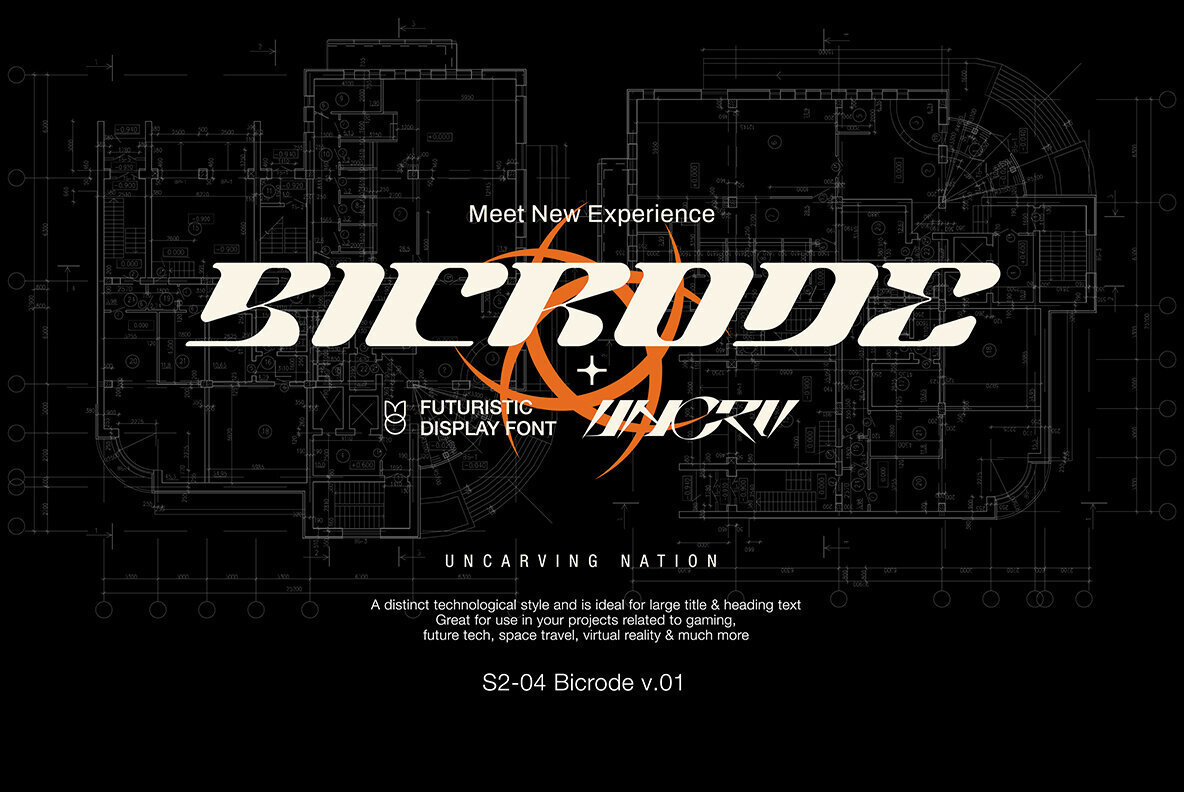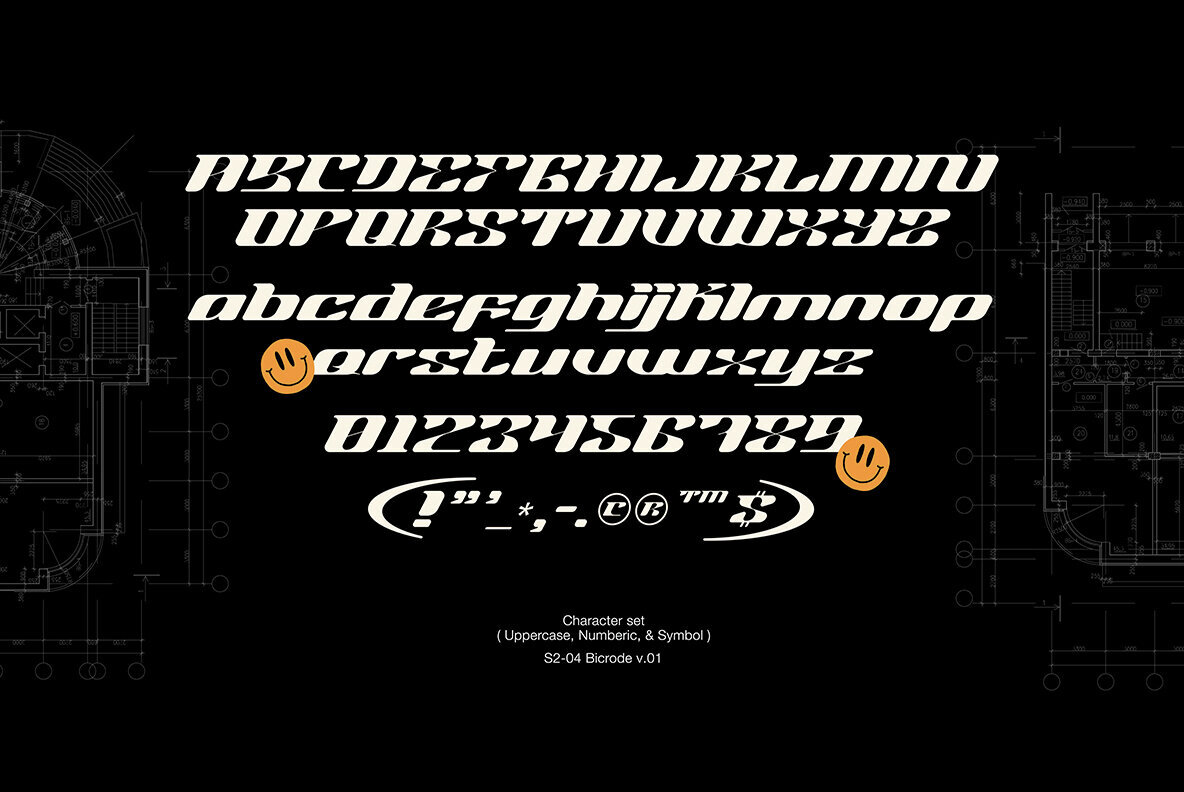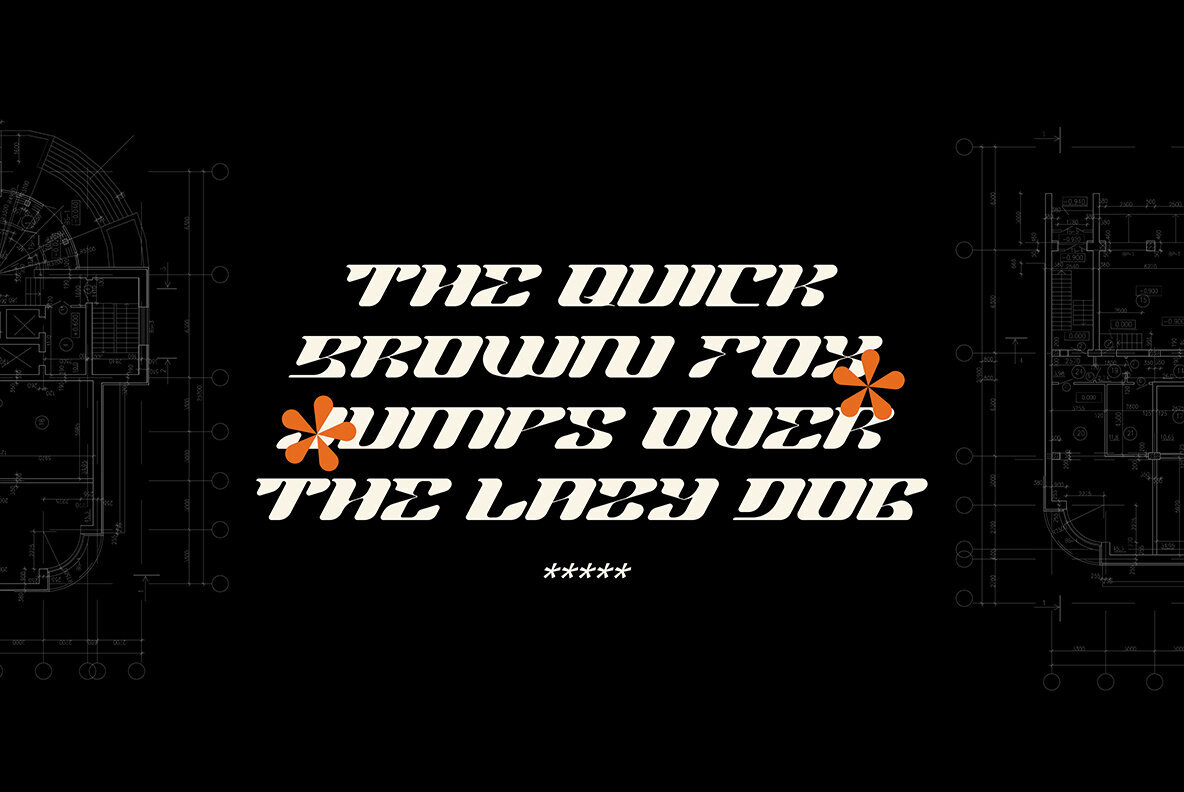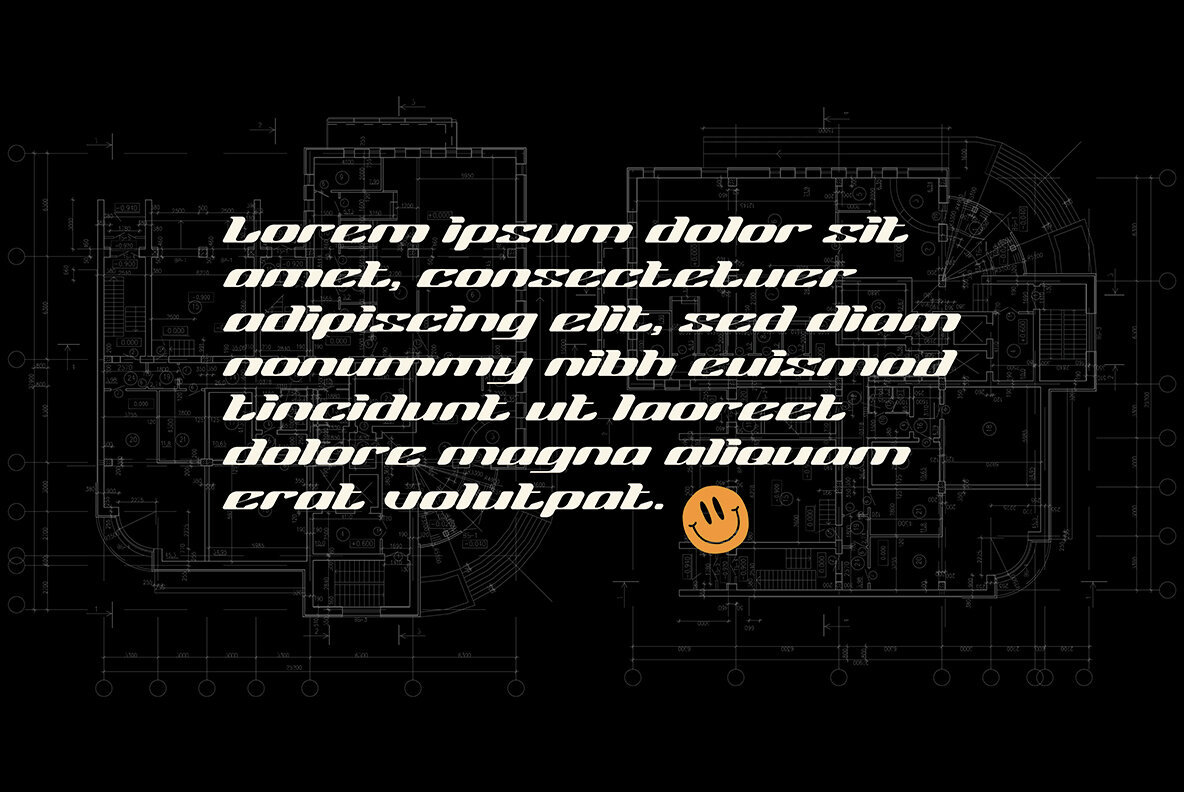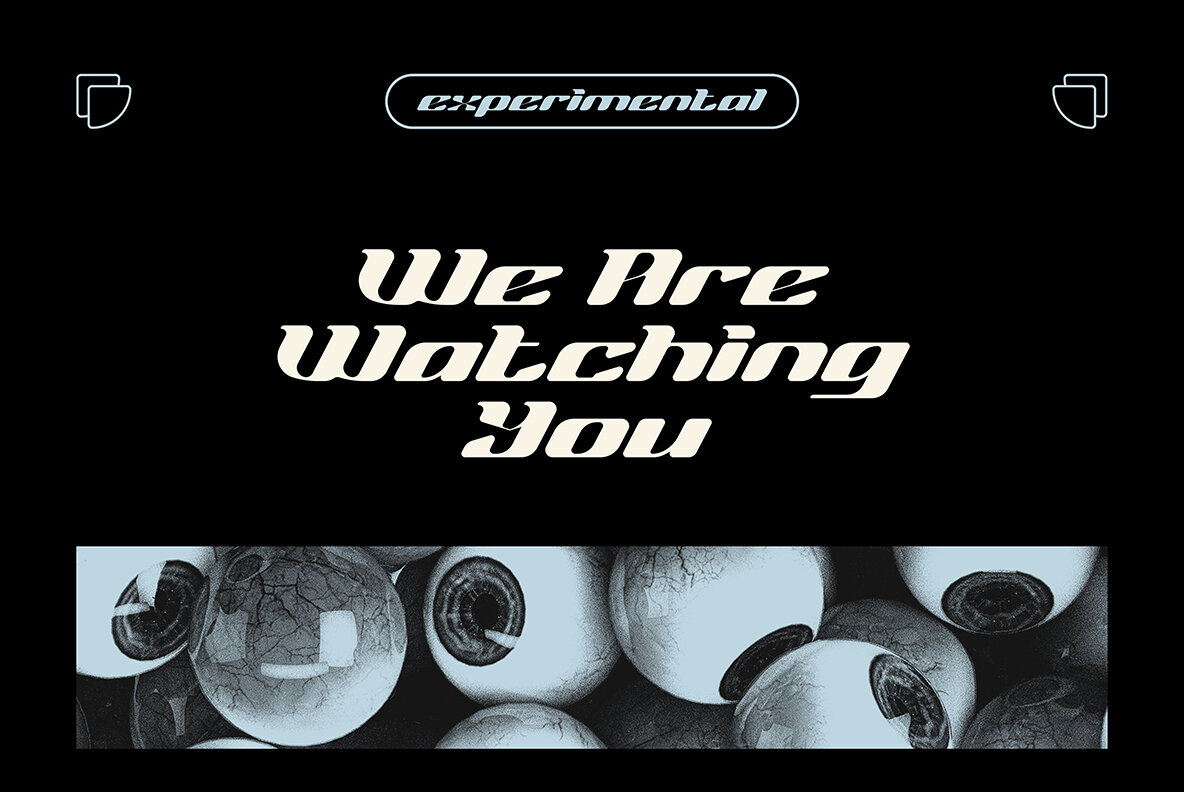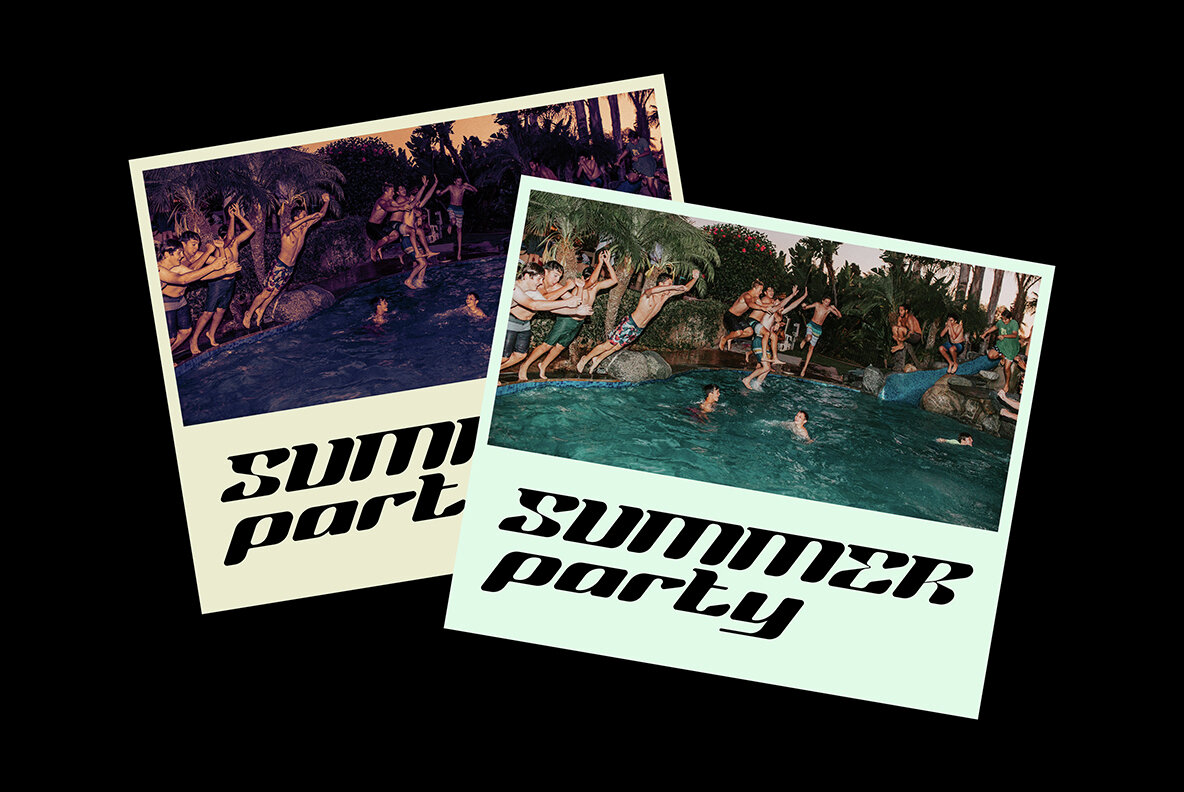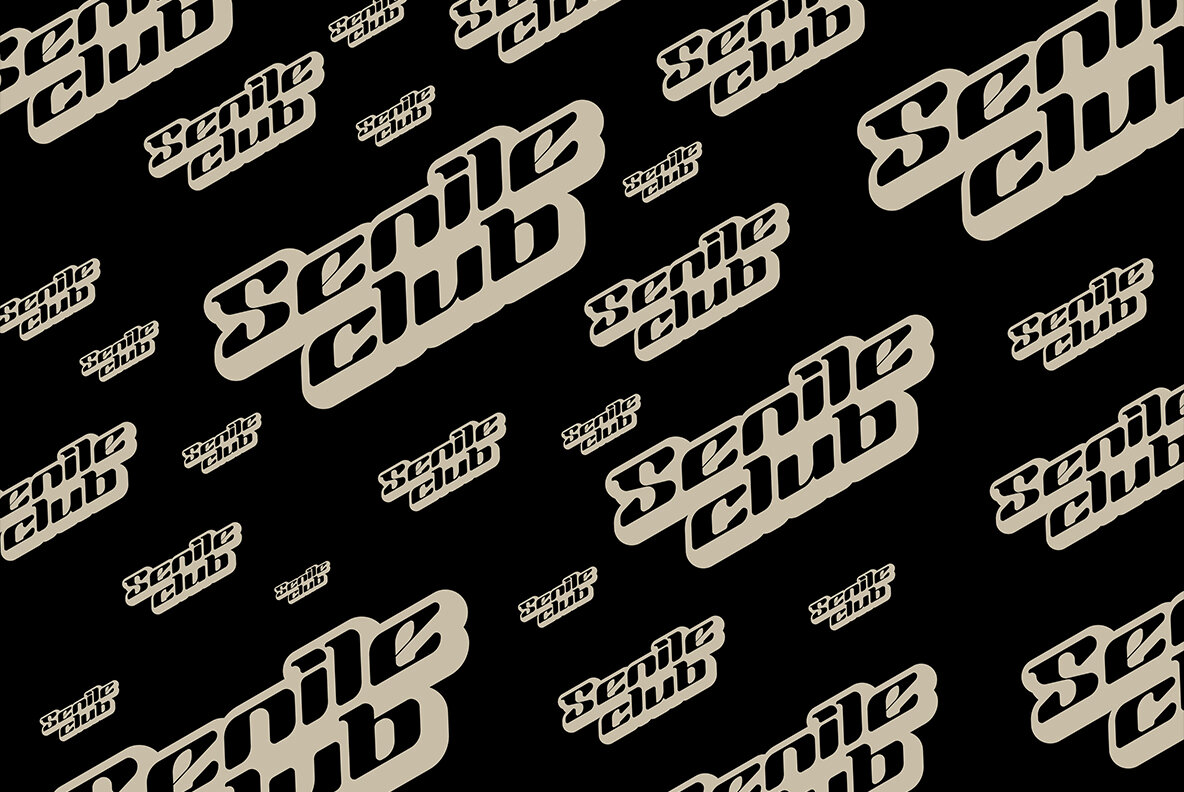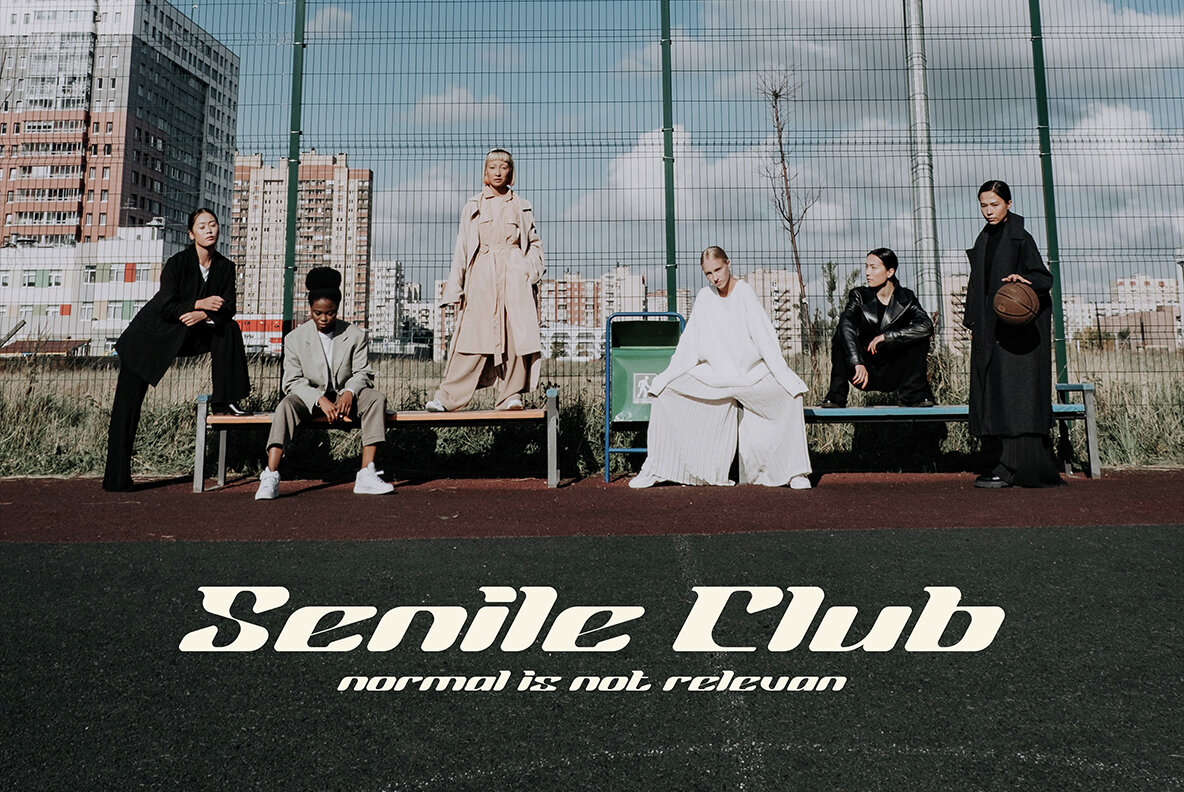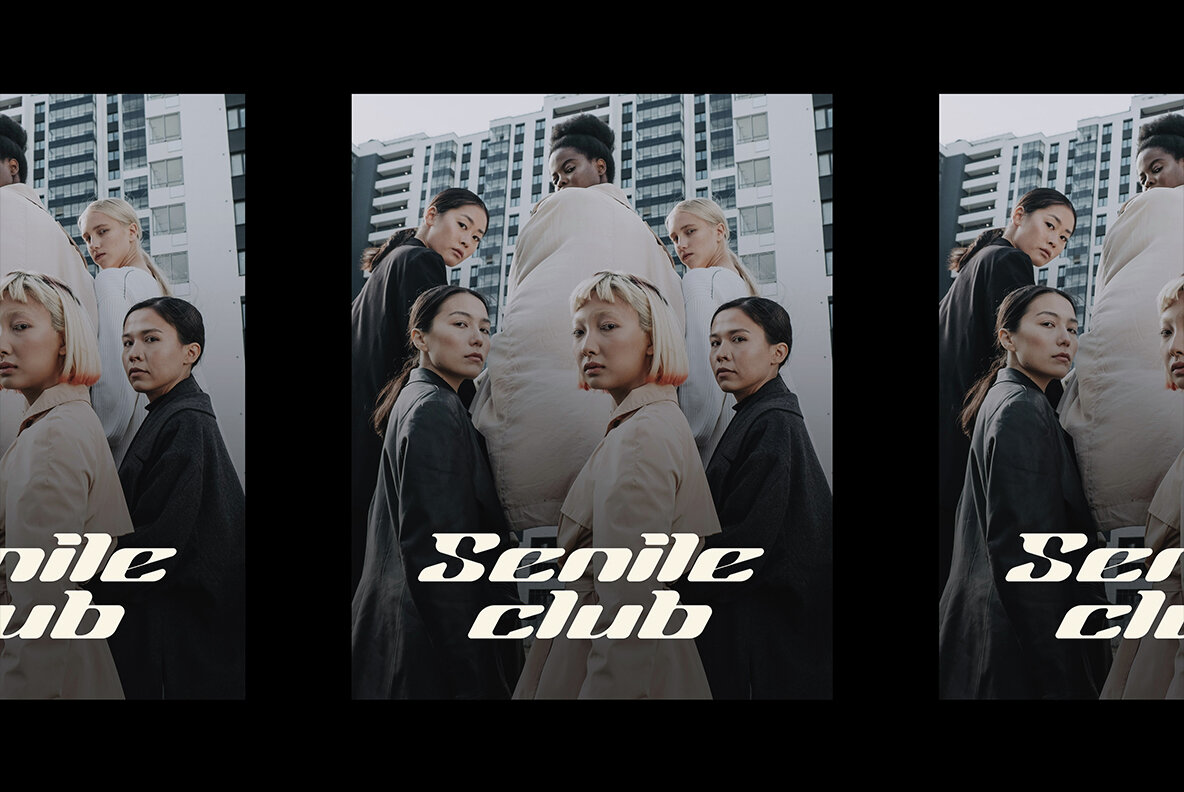
Bicrode Font
BICRODE
Bicrode is a captivating typeface that blends bold modern lines with a subtle italic flair. This font strikes a balance between simplicity and distinctive design, making it a perfect choice for projects in gaming, future technology, space exploration, and virtual reality.Bicrode: Sleek Modern Font
Uncarving Nation is a type foundry based in Jepara, Indonesia, Its aim is to explore typography based on elements that the founder, as a graphic designer, finds useful and enjoyable.Over the last two years, he has discovered many new aspects of typography from various genres, which he combines to create fr...